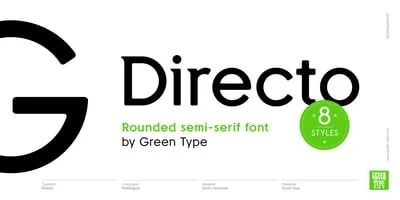
Directo Font
Directo Font is perfect for corporate communications, executive leadership branding, direct marketing campaigns, straightforward business messaging, efficient logistics companies, clear navigation systems, no-nonsense professional services, direct-to-consumer brands, and any project requiring typography with immediate clarity and uncompromising directness.
What makes Directo Font exciting is its unwavering clarity that captures the essence of direct communication and straightforward efficiency with clean letterforms that cut through confusion and deliver messages with precision and authority. This powerful typeface embodies the no-nonsense approach of effective leadership with geometric construction that eliminates unnecessary elements in favor of maximum impact and crystal-clear readability. The font's direct character and professional sophistication make it perfect for brands that value honesty, efficiency, and the power of clear, unambiguous communication in business and personal interactions.
The Directo Font family includes light, regular, and bold weights, featuring complete uppercase and lowercase alphabets, numerals, punctuation marks, and direct communication elements. The font maintains consistent clarity throughout all weights while ensuring optimal performance for both commanding headlines and straightforward text applications in business and professional contexts.
Whether you're designing for executive services, creating direct marketing materials, or developing corporate branding with straightforward aesthetics, Directo Font delivers unmatched communication clarity and professional directness to your projects. This exceptional typeface transforms ordinary text into powerful expressions of efficiency and honesty that celebrate the value of clear thinking and direct action in achieving business success. The font's direct character makes it ideal for consulting firms, executive coaches, and efficiency-focused organizations. Download this remarkable font today and bring the commanding power of direct communication to your design projects with authentic professional clarity and directness excellence.